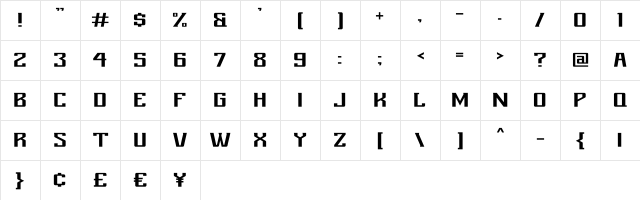
Cruelty Regular Free Font
Cruelty Regular
Cruelty Family
Design Context for Cruelty
Cruelty is a composed and adaptable typeface that performs quietly and consistently across a wide range of design contexts.